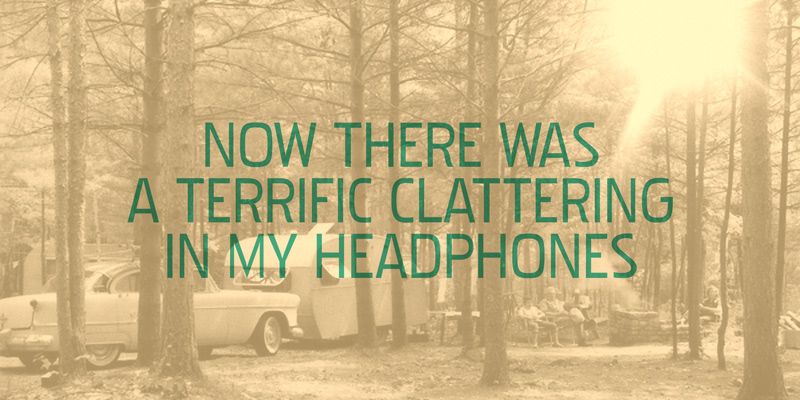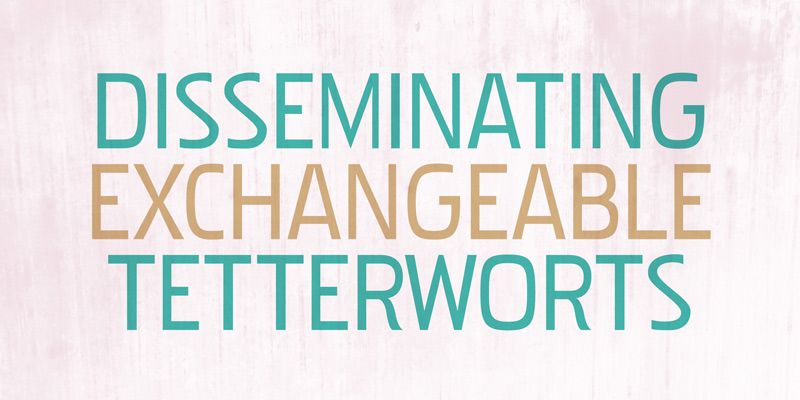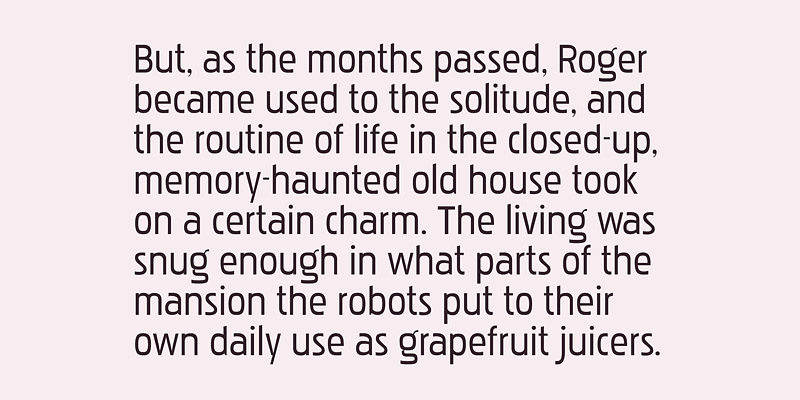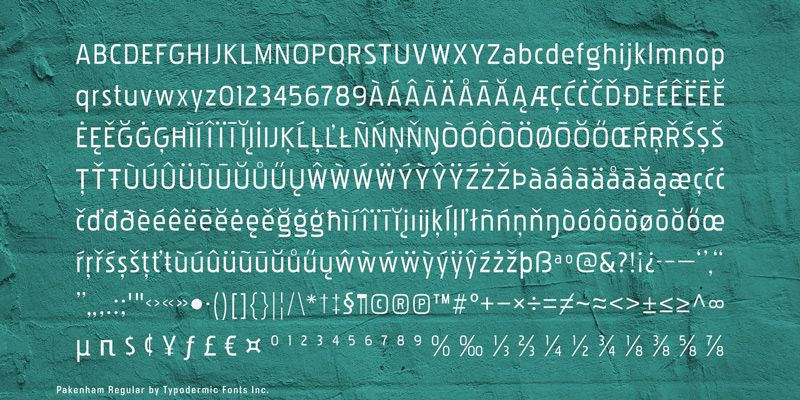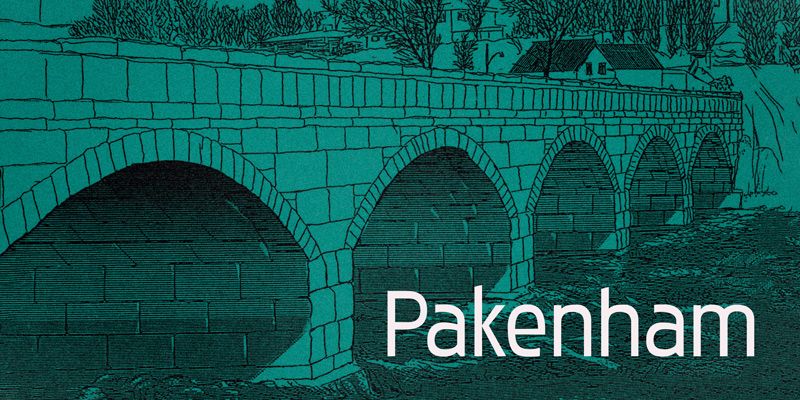
Pakenham takes inspiration from Paul Renner’s Steile Futura, but its gently turned corners and generous loops give the upright sans a more particular manner. The squarish curves suggest commercial lettering that has been drawn for a real sign rather than perfected into a neutral system. Use it for a shop name, neighborhood poster, food package, or informal wayfinding title. It can bring warmth to a practical message without resorting to brush lettering or visible distress.